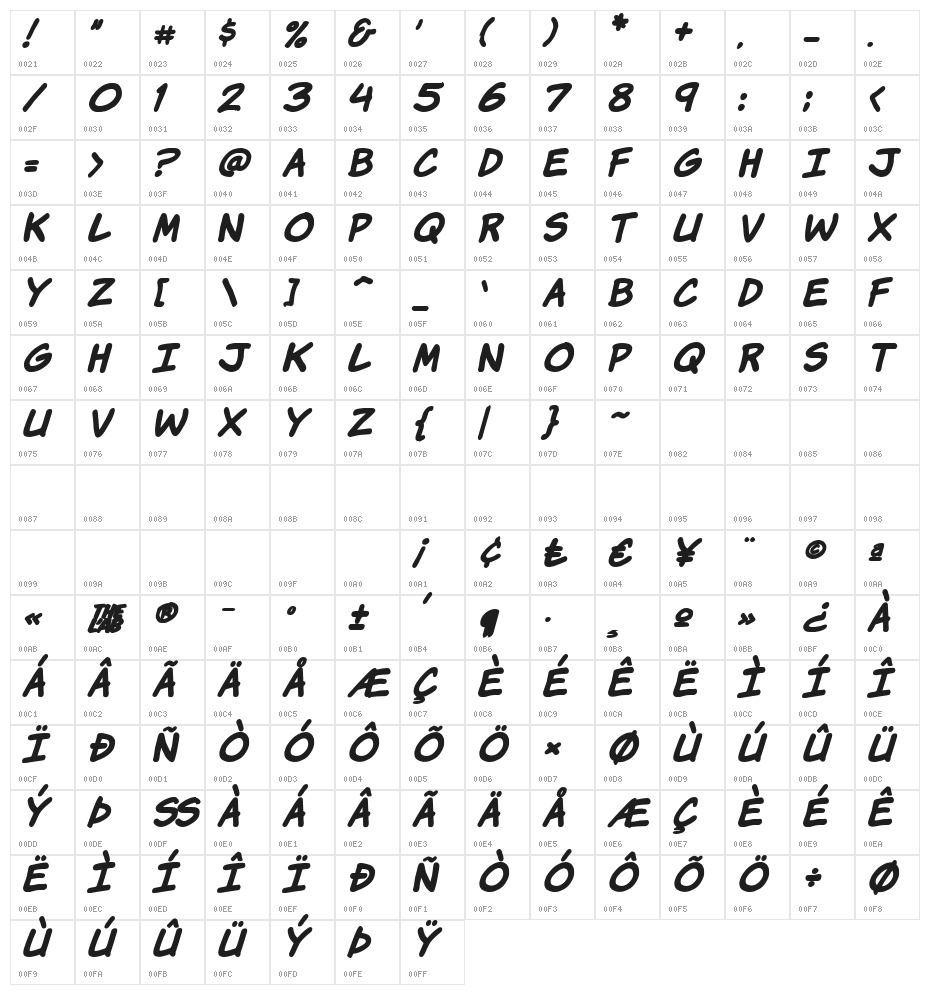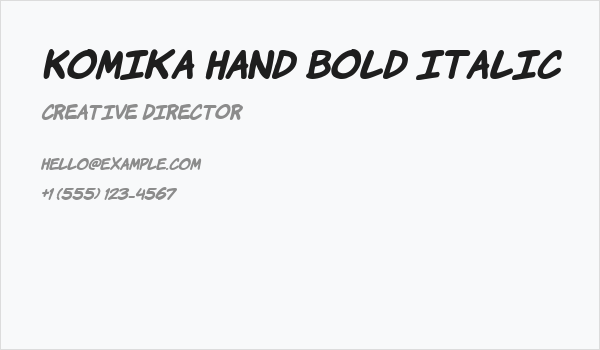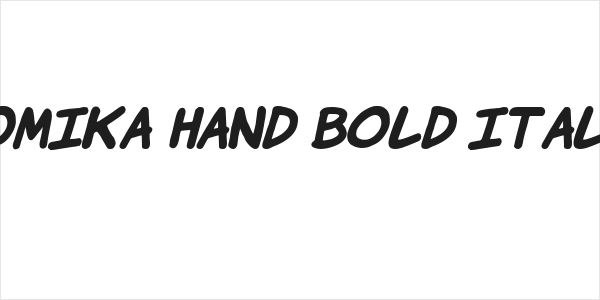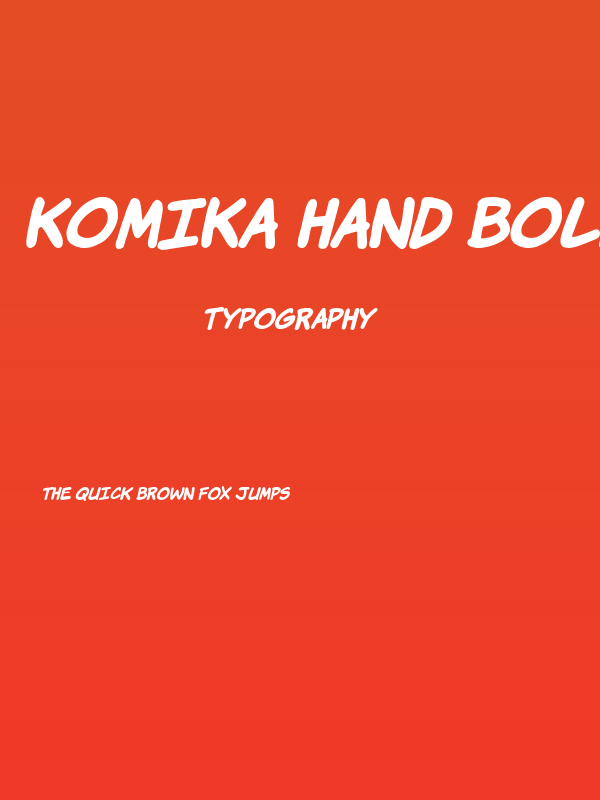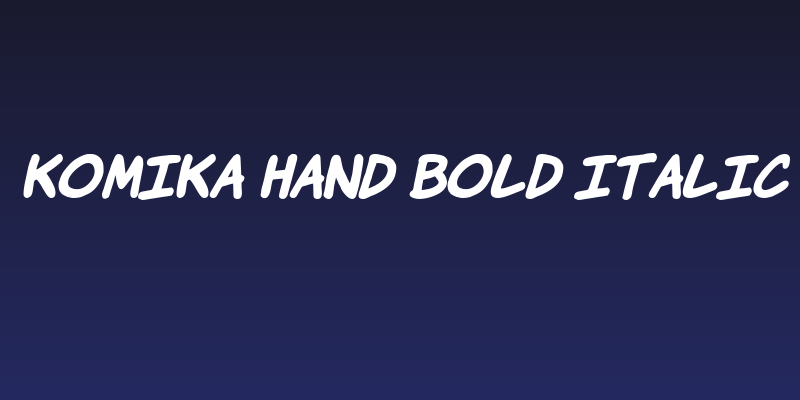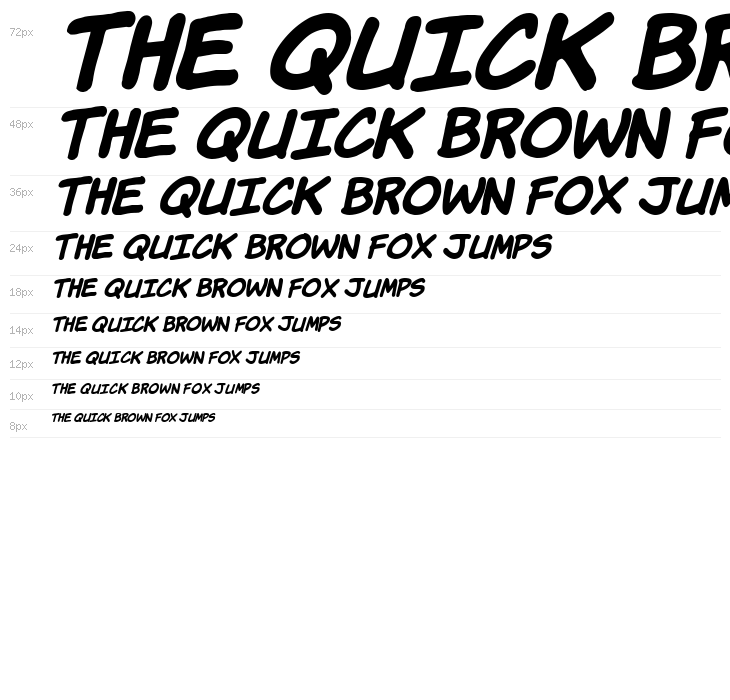
Komika Hand Bold Italic Font
Komika Hand Bold Italic Description
This font features a bold and playful handwritten style with a distinct italic slant. The characters are rounded and smooth, giving a casual and friendly appearance. The uppercase and lowercase letters maintain a consistent style, with a slight tilt that adds dynamism. The numbers are clear and legible, matching the overall aesthetic. Special characters are included, maintaining the same bold and playful design. This font is ideal for projects that require a fun and informal touch.
| Overall Style | Playful, Casual |
| Proposed Projects | Perfect for comic books, children's books, playful branding, and informal invitations. |